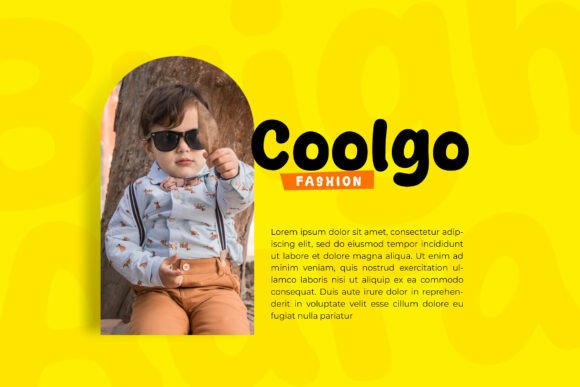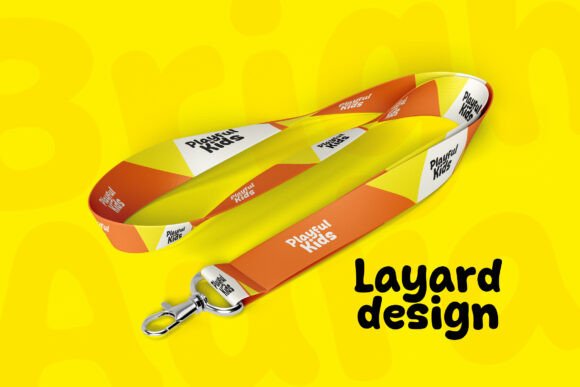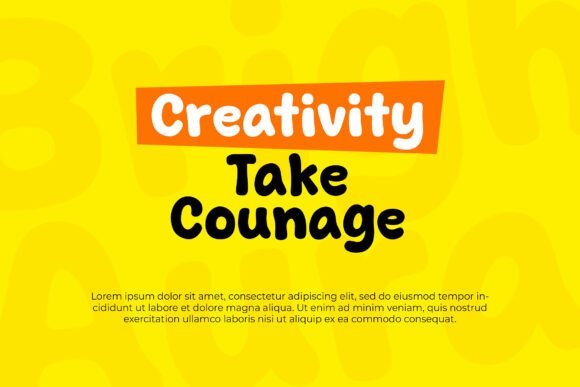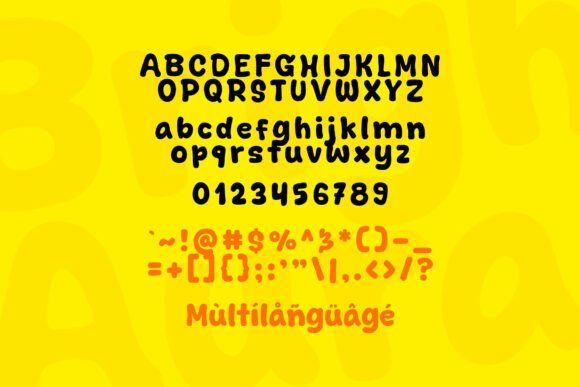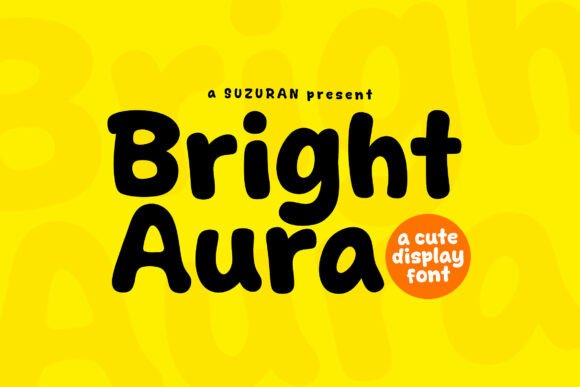
The Ultimate Display Font: Bright Aura
Have you ever been in the middle of a design project, and suddenly, you just can’t seem to find the right font? I know I have! It was a typical Wednesday evening when I was working on a client’s poster design. The concept was clear, the colors were picked, but something was missing. That’s when I stumbled upon Bright Aura, a fresh and unique display font that completely transformed my design.
My First Impressions
As soon as I opened Bright Aura on my computer, I knew I had found something special. The font has a lovely twist that sets it apart from other display fonts. It’s perfect for posters, logos, magazines, book covers, banners, and more! The versatility of Bright Aura is one of its best features – it can easily be adapted to a very large set of projects, making it a great addition to your creative toolkit.
• ✨ Unique and fresh design that’s sure to grab attention
• ✅ Highly versatile and adaptable to various projects
• ✅ Easy to read, even in large sizes
• ✅ Works well with both bold and subtle design elements
While Bright Aura is an amazing font, there are a few things to keep in mind:
• ⚠️ Some of the more intricate details might get lost at very small sizes
• 🤔 Limited availability of certain OpenType features in certain software
The Designer Inspiration Behind Bright Aura
Bright Aura was created with the intention of crafting a unique display font that would inspire creativity. The designer aimed to create a font that would not only be visually stunning but also highly versatile. Although the designer’s background is shrouded in mystery, it’s clear that they poured their heart and soul into creating this beautiful font.
Q: What type of projects is Bright Aura best suited for?
A: Bright Aura is perfect for posters, logos, magazines, book covers, banners, and more! Its versatility makes it suitable for a wide range of projects.
Q: Does Bright Aura support OpenType features?
A: Yes, Bright Aura supports various OpenType features, including glyphs and stylistic alternates. You can access these features in compatible software like Adobe Photoshop and Illustrator.